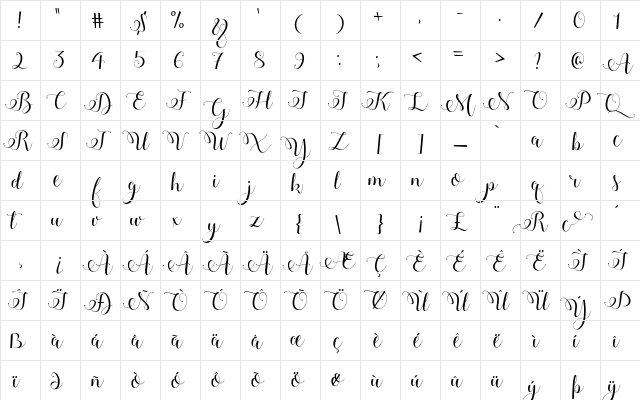
Adyana Regular
| Foundry | Acitya Adyana |
| Designer | Acitya Creative |
Design Context for Adyana Typeface
Adyana is a composed and adaptable typeface that performs quietly and consistently across a wide range of design contexts.